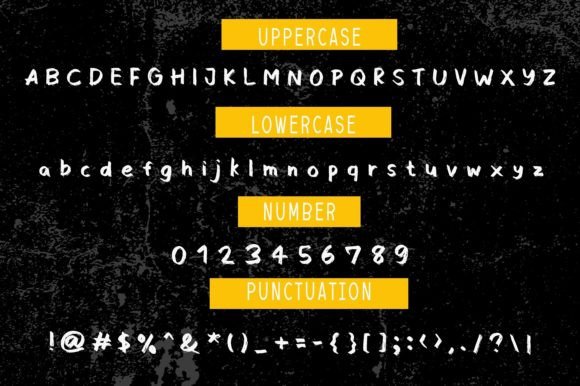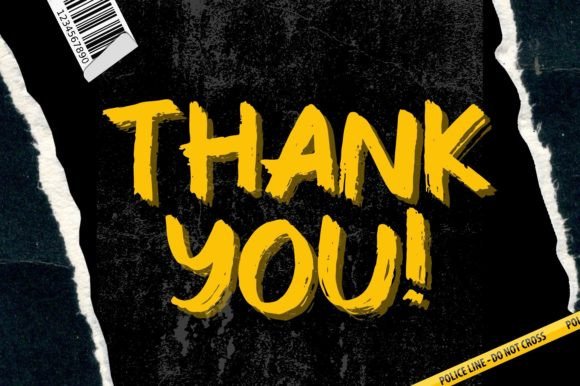
Introducing Brusher Font: The Cute and Playful Handwritten Font for Your Design Needs
Are you a designer or crafter looking for a font that embodies playfulness and authenticity? Look no further than Brusher Font! This adorable handwritten font is perfect for a wide range of design projects, from blog posts and logos to branding, ads, invitations, and more. In this article, we’ll dive into the features and benefits of Brusher Font, and explore how you can use it to elevate your designs.
The Characteristics of Brusher Font
Brusher Font is a beautifully crafted handwritten font that exudes a sense of lightness and playfulness. Its characters are carefully designed to be easy to read and visually appealing, making it perfect for use in a variety of design projects. The font’s handwritten style gives it a personal and authentic feel, making it ideal for designs that require a touch of personality.
The Benefits of Using Brusher Font
So, why choose Brusher Font for your design projects? Here are just a few benefits of using this versatile font:
- Playfulness: Brusher Font is the perfect choice for designs that require a playful touch. Its handwritten style and lighthearted feel make it ideal for projects that need to convey a sense of fun and creativity.
- Authenticity: Brusher Font has a genuine, handmade feel that makes it perfect for designs that require a personal touch. Whether you’re creating a logo, branding materials, or social media graphics, Brusher Font will help you connect with your audience.
- Versatility: Brusher Font is suitable for a wide range of design projects, from digital designs like blog posts and social media graphics to print materials like invitations, greeting cards, and planners.
Using Brusher Font in Your Designs
So, how can you use Brusher Font in your designs? Here are a few ideas to get you started:
- Blog Posts: Add a personal touch to your blog posts with Brusher Font. Use it for headings, subheadings, or even entire paragraphs to add a playful and creative feel to your content.
- Logos and Branding: Create a unique and memorable logo with Brusher Font. Its handwritten style makes it perfect for businesses that want to convey a sense of personality and approachability.
- Invitations and Greeting Cards: Add a touch of whimsy to your invitations and greeting cards with Brusher Font. Its playful feel makes it perfect for special occasions like birthdays, weddings, and holidays.
- Social Media Graphics: Use Brusher Font to create eye-catching social media graphics that stand out from the crowd. Its lighthearted feel makes it perfect for creating engaging and shareable content.
Tips for Getting the Most Out of Brusher Font
Here are a few tips for getting the most out of Brusher Font:
- Experiment with Colors: Brusher Font looks great in a variety of colors, so don’t be afraid to experiment and find the perfect hue for your design.
- Mix and Match: Combine Brusher Font with other fonts to create a unique and visually appealing design.
- Play with Size: Brusher Font looks great in a range of sizes, from large headings to smaller body text.
In conclusion, Brusher Font is a versatile and playful handwritten font that’s perfect for a wide range of design projects. Its lighthearted feel and authentic style make it ideal for designs that require a personal touch. Whether you’re a designer, crafter, or simply someone who loves to create, Brusher Font is a great addition to your design toolkit. So why not give it a try and see the amazing results for yourself?